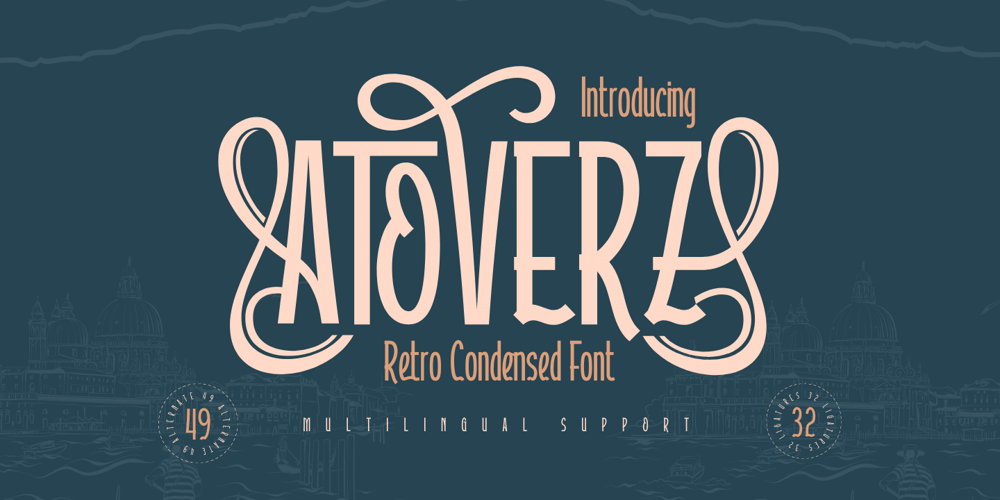
Atoverz Font Family was designed by Rozikan and published by Twinletter. Atoverz contains 1 styles and family package options. Introducing Atoverz, the perfect retro condensed font for your next project. This font features a classic retro design that is both stylish and functional. With 49 curved alternate characters and 32 beautiful ligatures, Atoverz allows you to easily create unique and stunning designs. Its multilingual support also ensures you can use it for projects in any language.The sleek and elegant design of Atoverz makes it perfect for a wide range of projects, from logos and branding to posters and advertisements. Its retro classic style is sure to catch the eye of your audience and leave a lasting impression. So why wait? Add Atoverz to your font collection today and take your designs to the next level.Browse our collection now to discover the versatility and charm of Atoverz retro condensed font.What’s Included :- File font – All glyphs Iso Latin 1- Alternate, Ligature- Simple installations- We highly recommend using a program that supports OpenType features and Glyphs panels like many Adobe apps and Corel Draw so that you can see and access all Glyph variations.- PUA Encoded Characters – Fully accessible without additional design software.- Fonts include Multilingual support